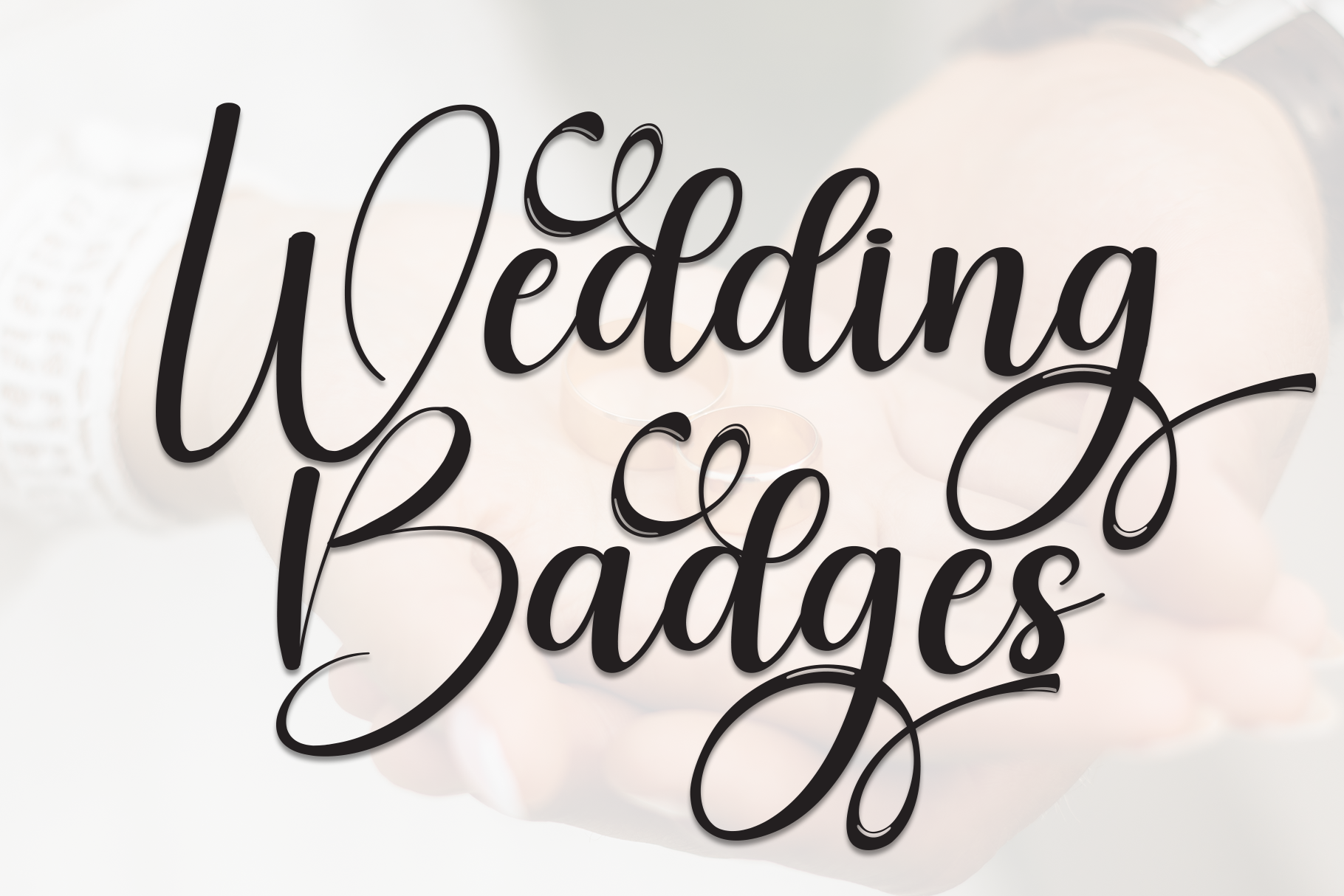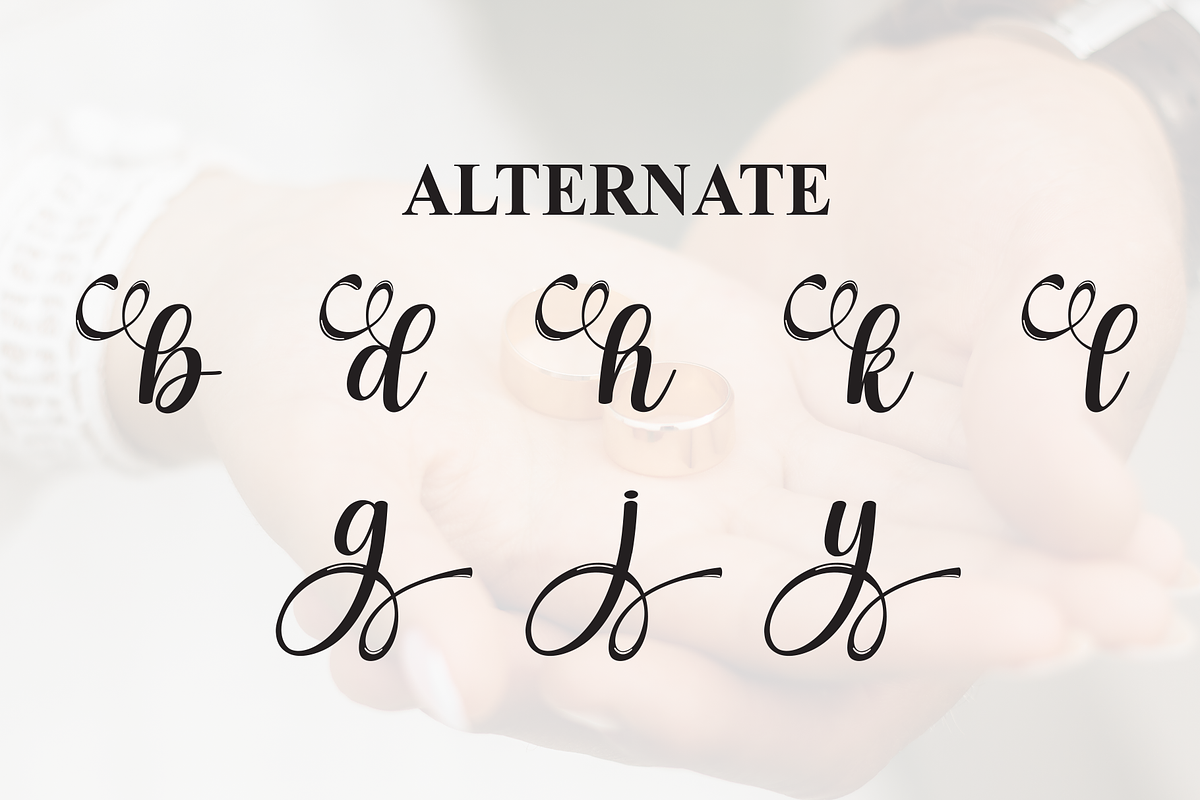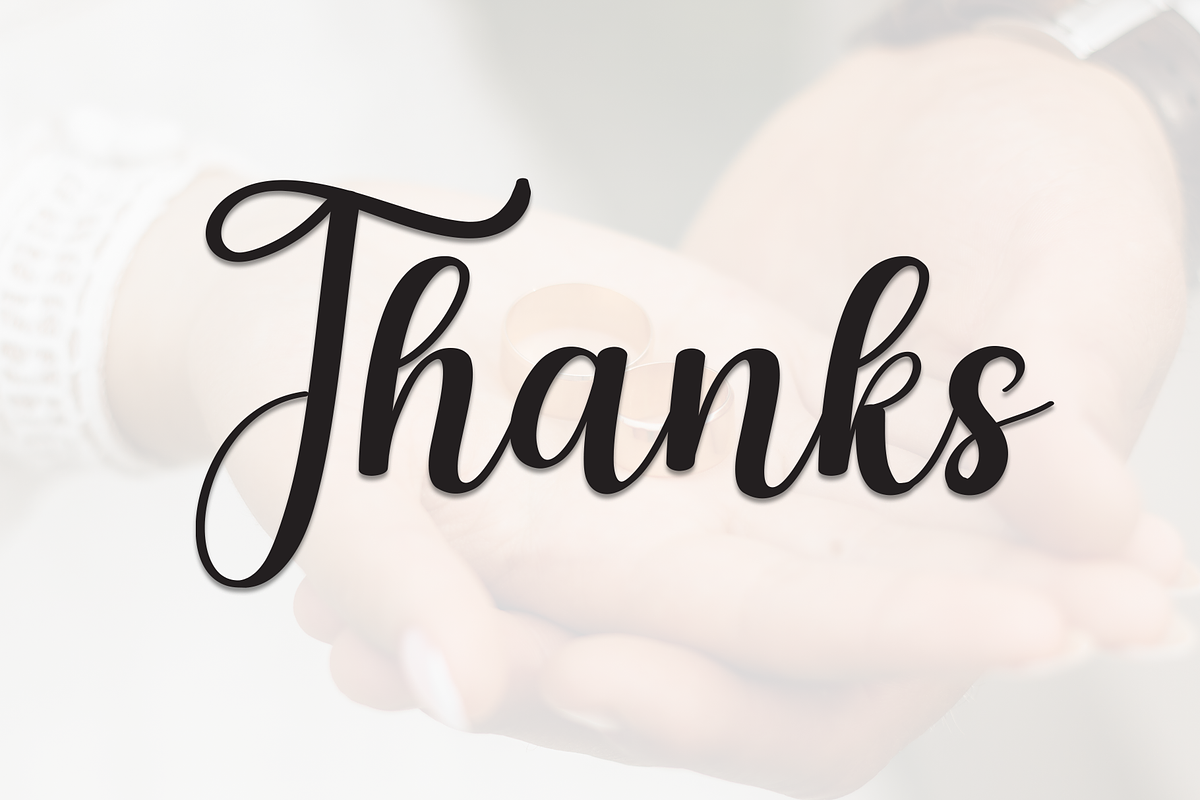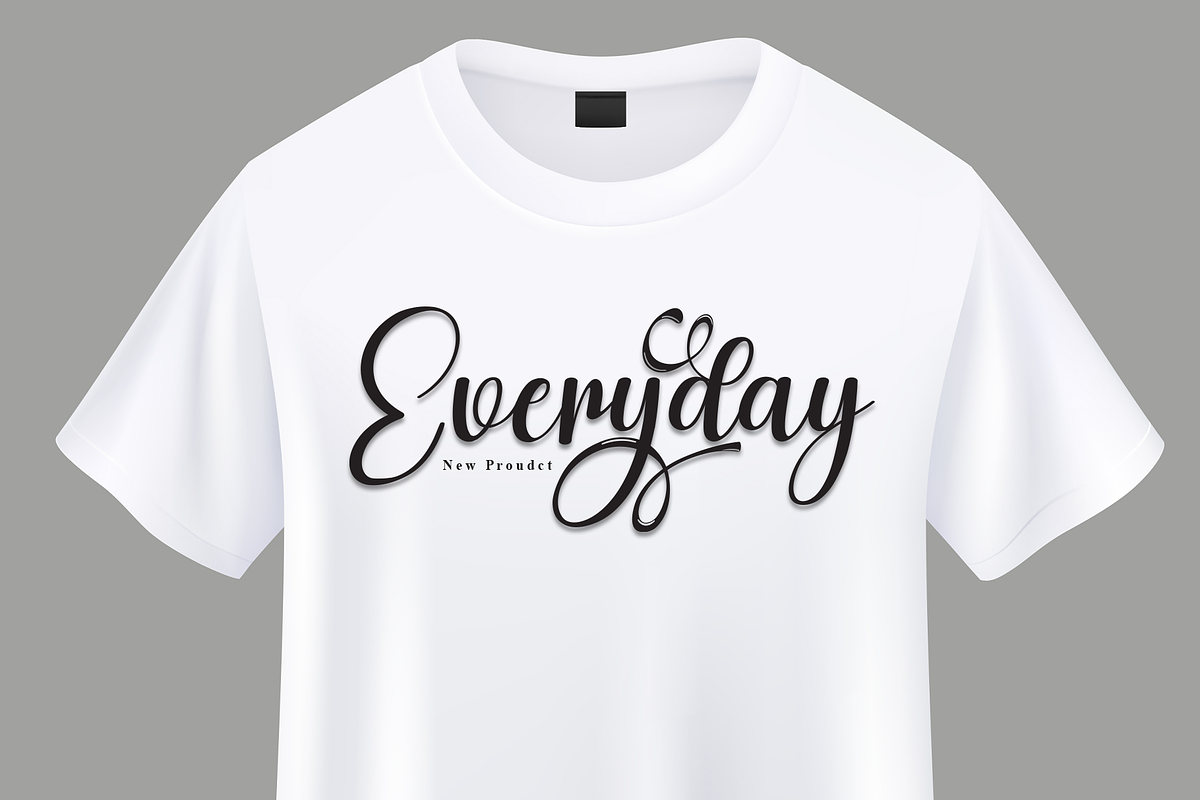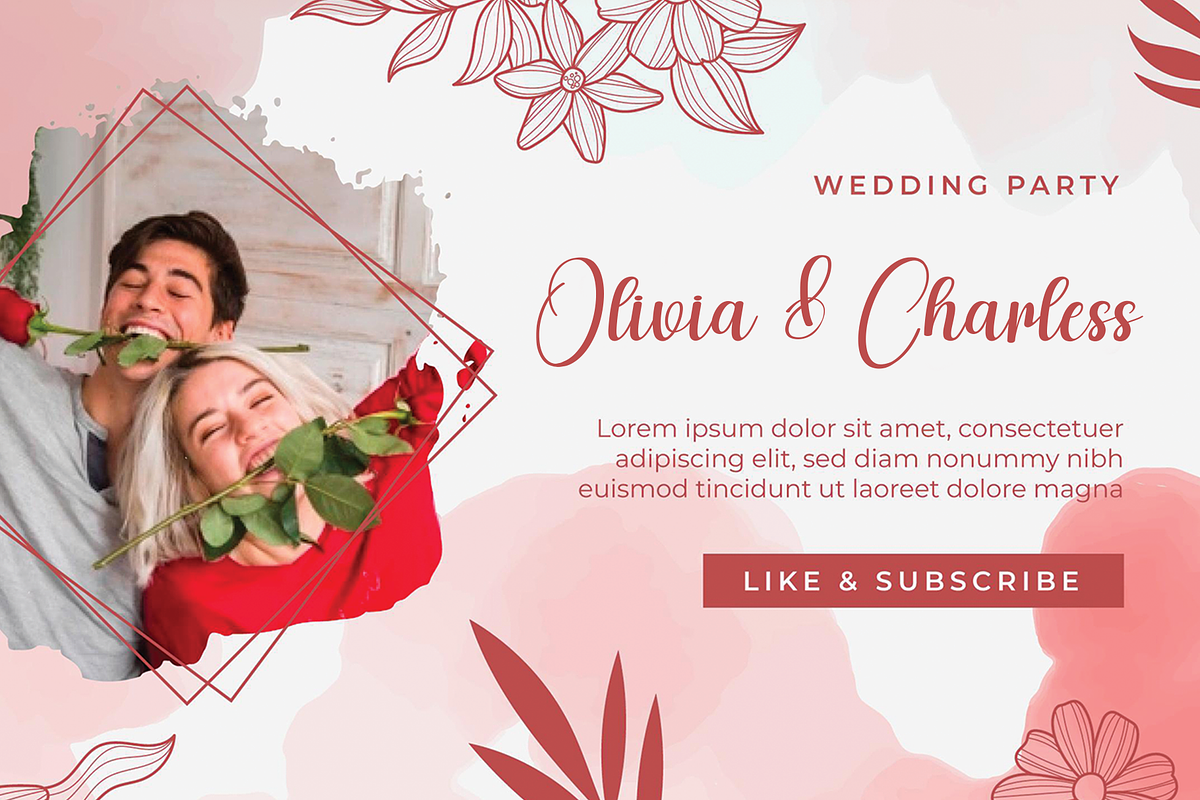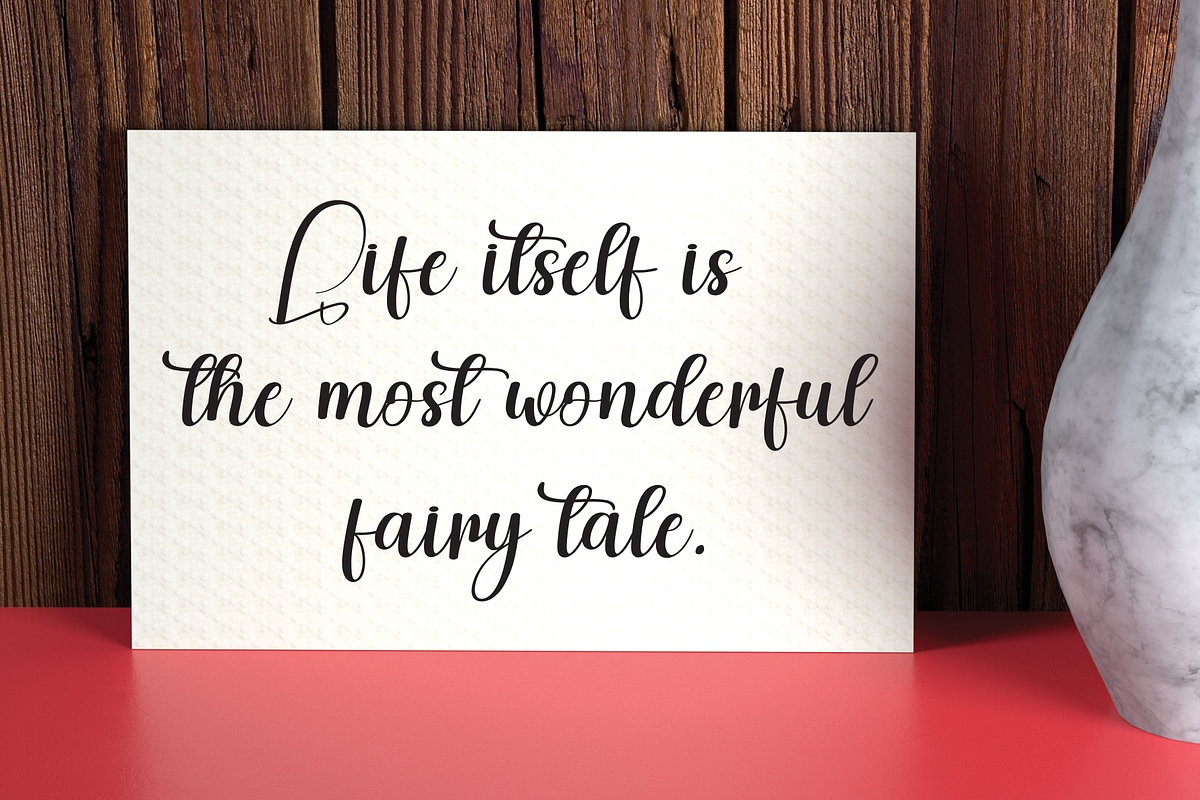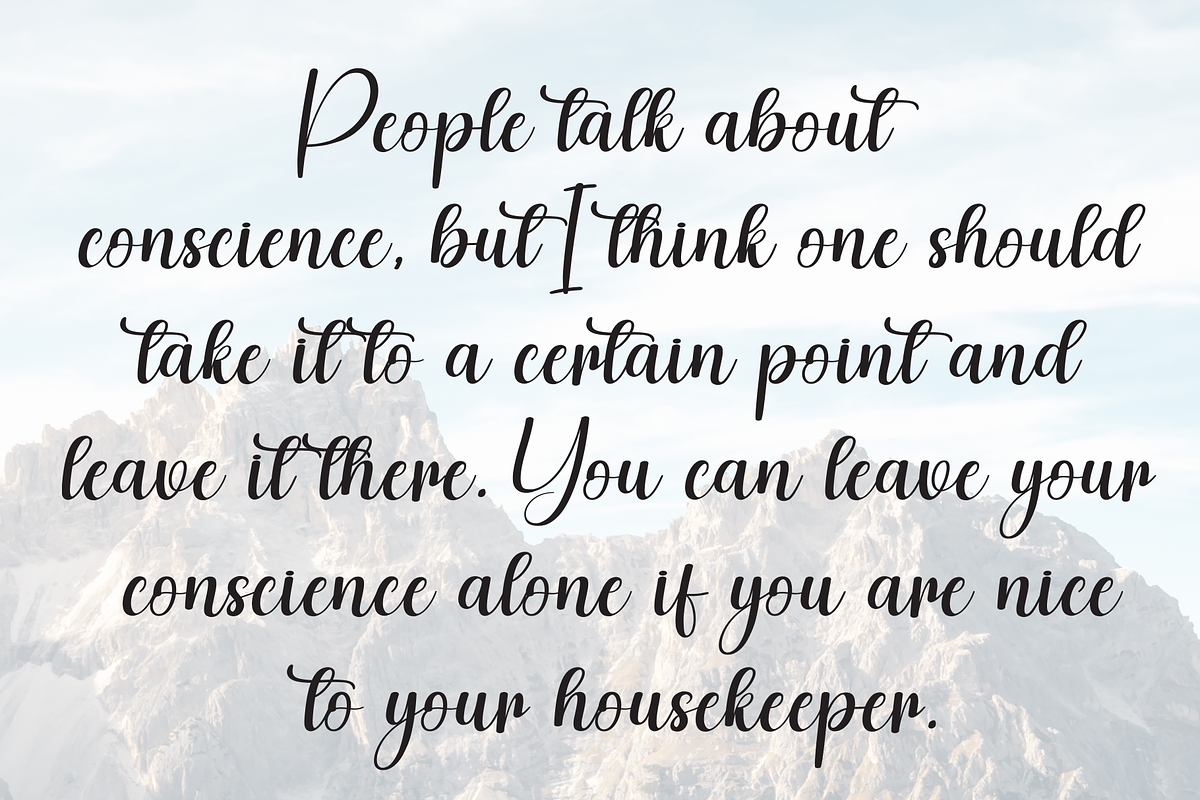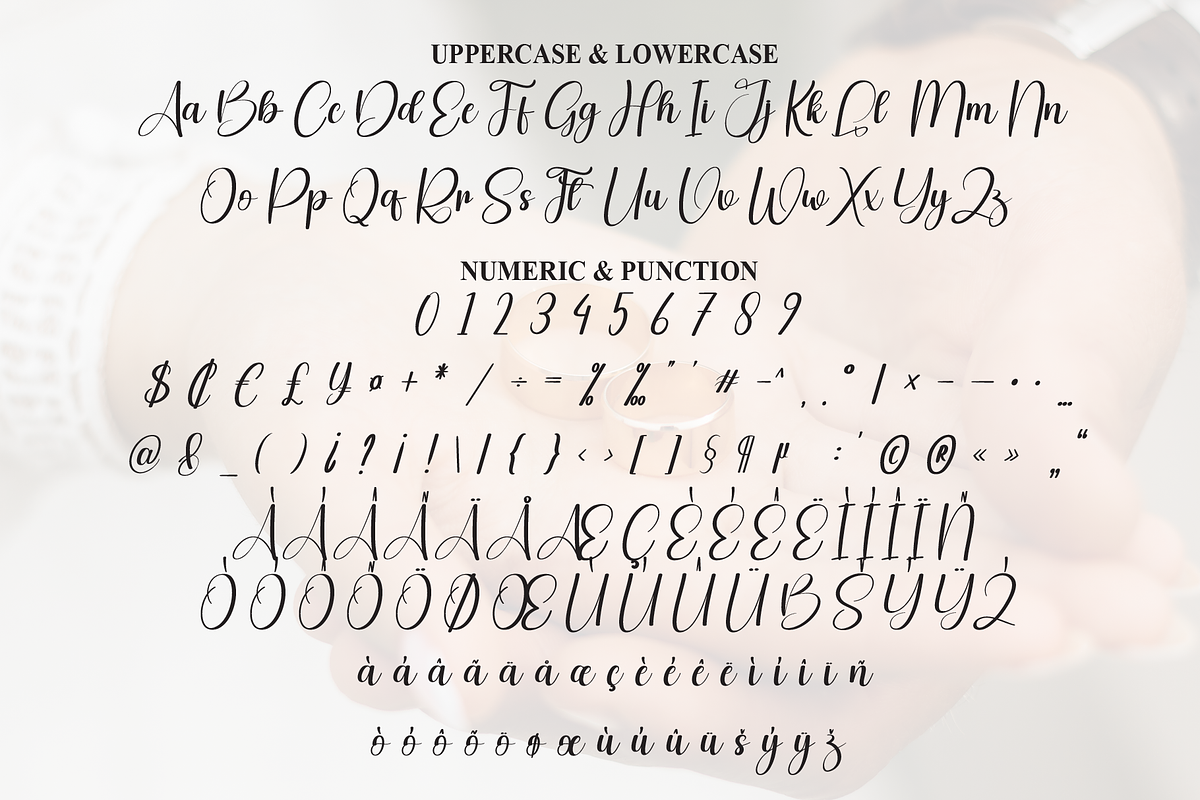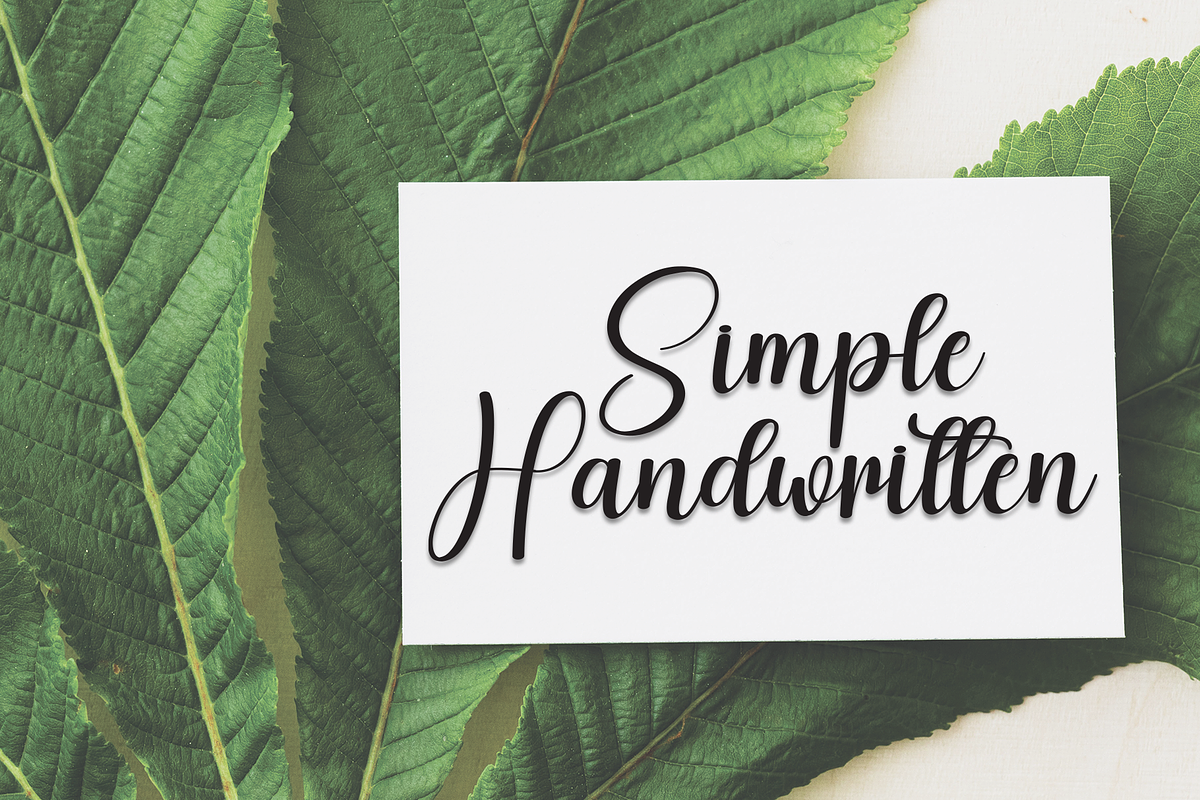
Wedding Badges | Script Font
DESCRIPTIONS Special creative products for you, our products will give you an extraordinary experience that will not be forgotten. A popular and professional script font. Modern and elegant, this typeface is made of beautiful creative strokes. This font is perfect for your creative ideas, both formal and informal. It has a modern style with a touch of creative ideas that is very suitable to be applied anywhere that requires creative ideas such as invitation cards, letterheads, website logos, social media, banners, advertisements, brochures, packaging products, leather products, and any product that requires writing. By using this font, all of your products will look luxurious, elegant, and attractive, please try and see the results. This font includes a complete set of beautiful upper and lowercase letters, numbers, a wide variety of punctuation marks, and ligatures. All lowercase letters include a start and end, providing a realistic style. everything you get. Included in this set: OTF, .TTF, .SVG, .WOFF file, Web Fonts included, Can be accessed completely without additional design software., Please note that Stylistic Alternates will require professional design software such as Adobe Illustrator, Photoshop, InDesign or Inkscape. Thank you for downloading premium fonts from scratchones_creative